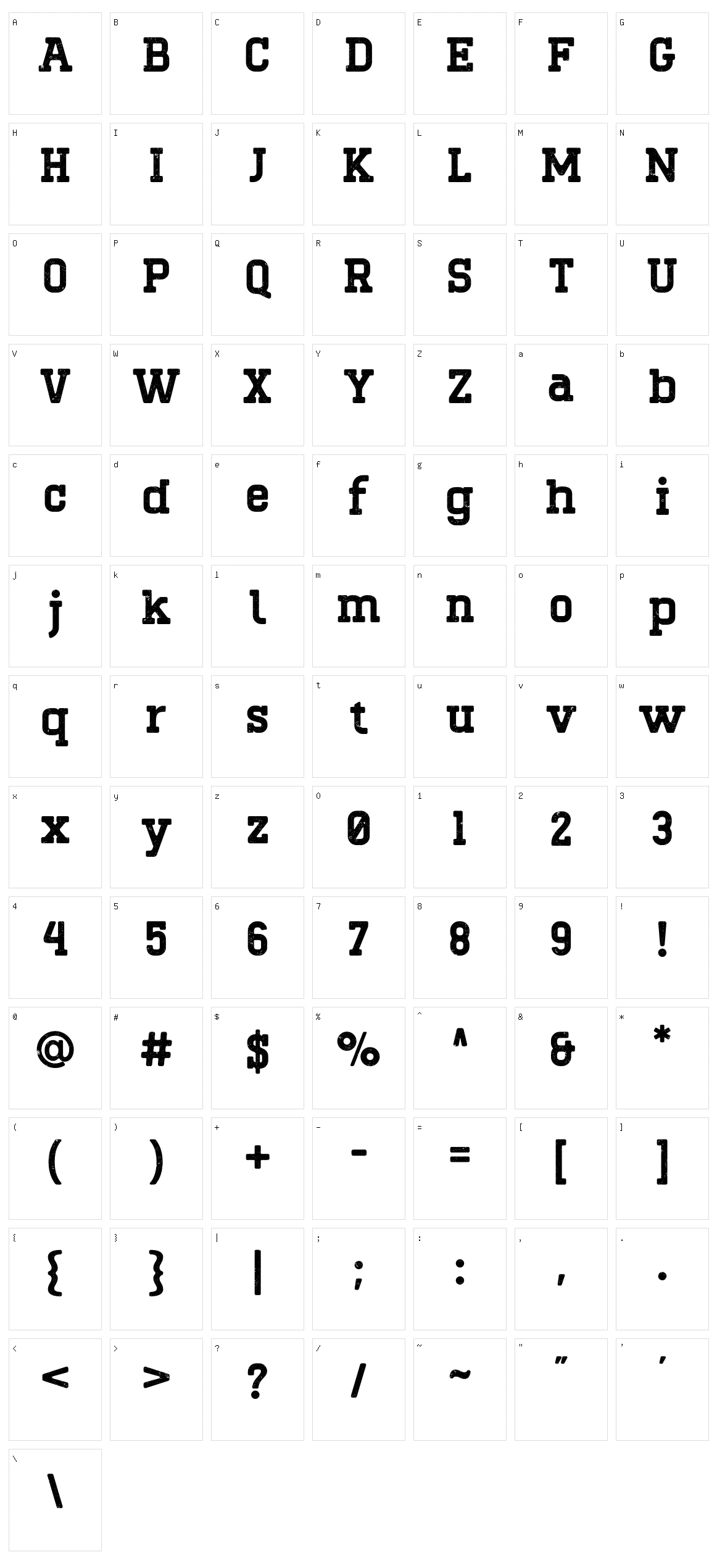
The free font Ranmor is carefully designed by Arterfak Project, showcasing a thoughtful balance of creativity and usability and falls under the Eroded font style. When you download the ZIP file, it contains only 403.32 KB of font files, making it lightweight and quick to download. Please review the license details below to understand permitted usage and distribution rights. If license information is not available, we recommend using this font for personal projects only or contacting the author directly for commercial usage permissions.